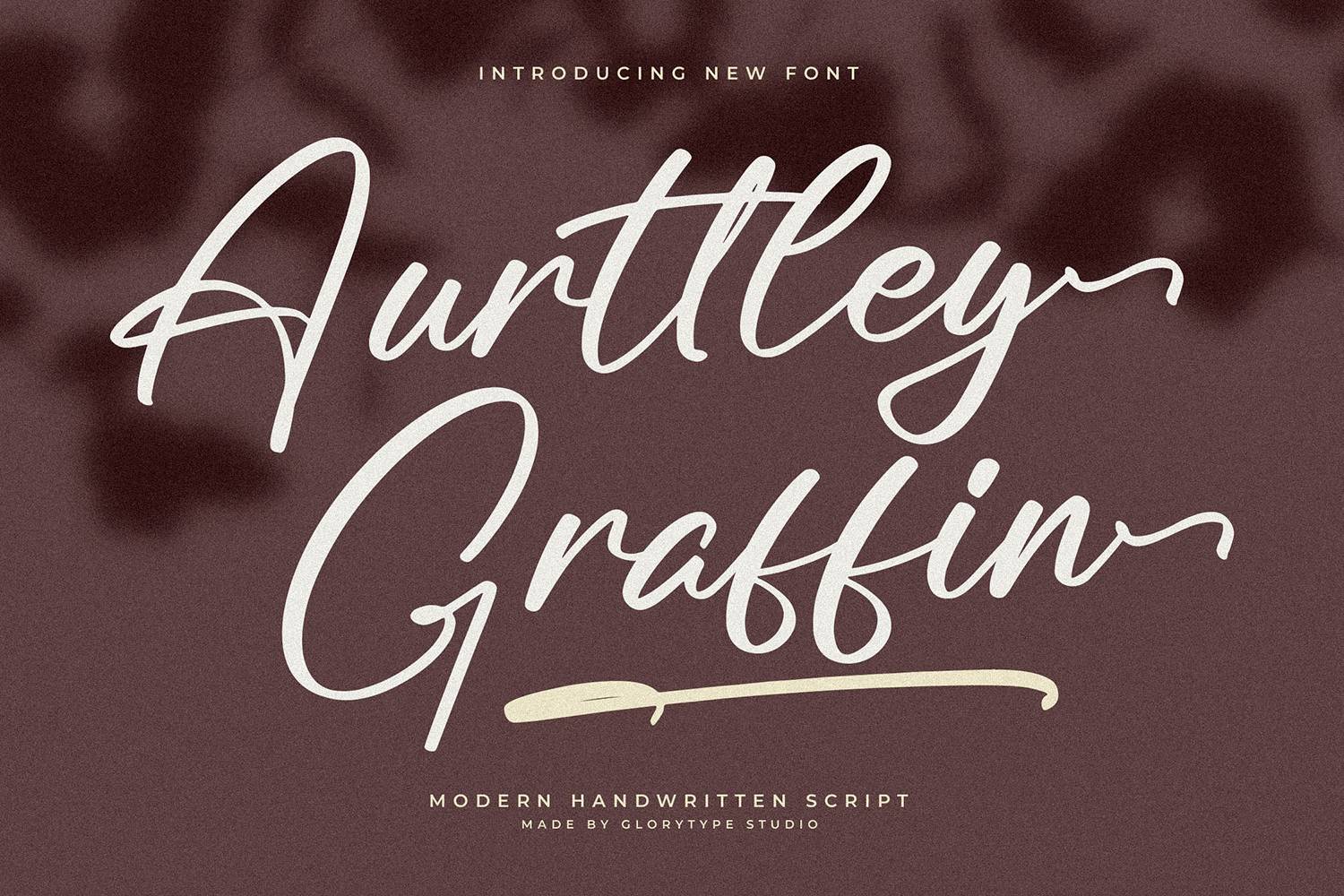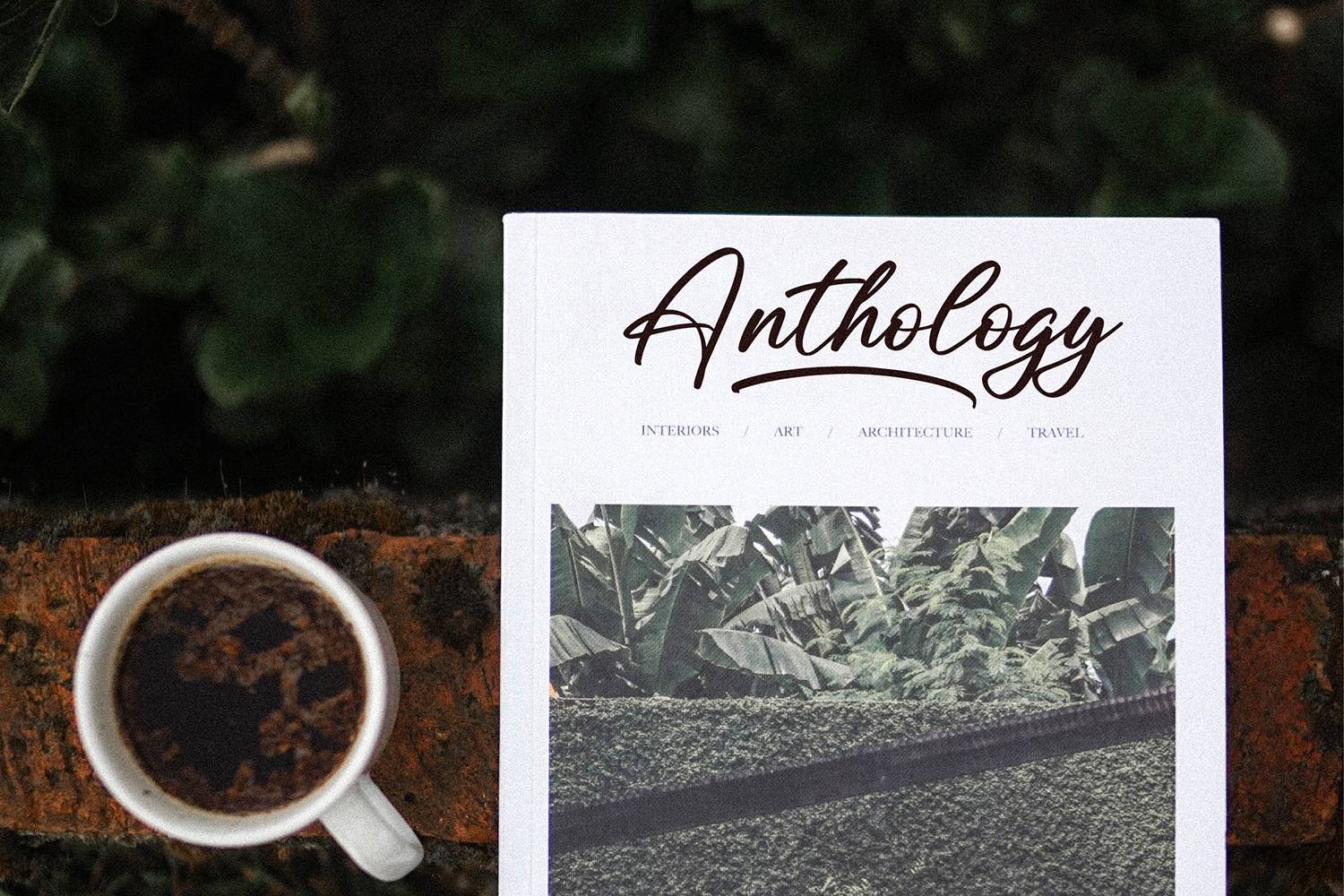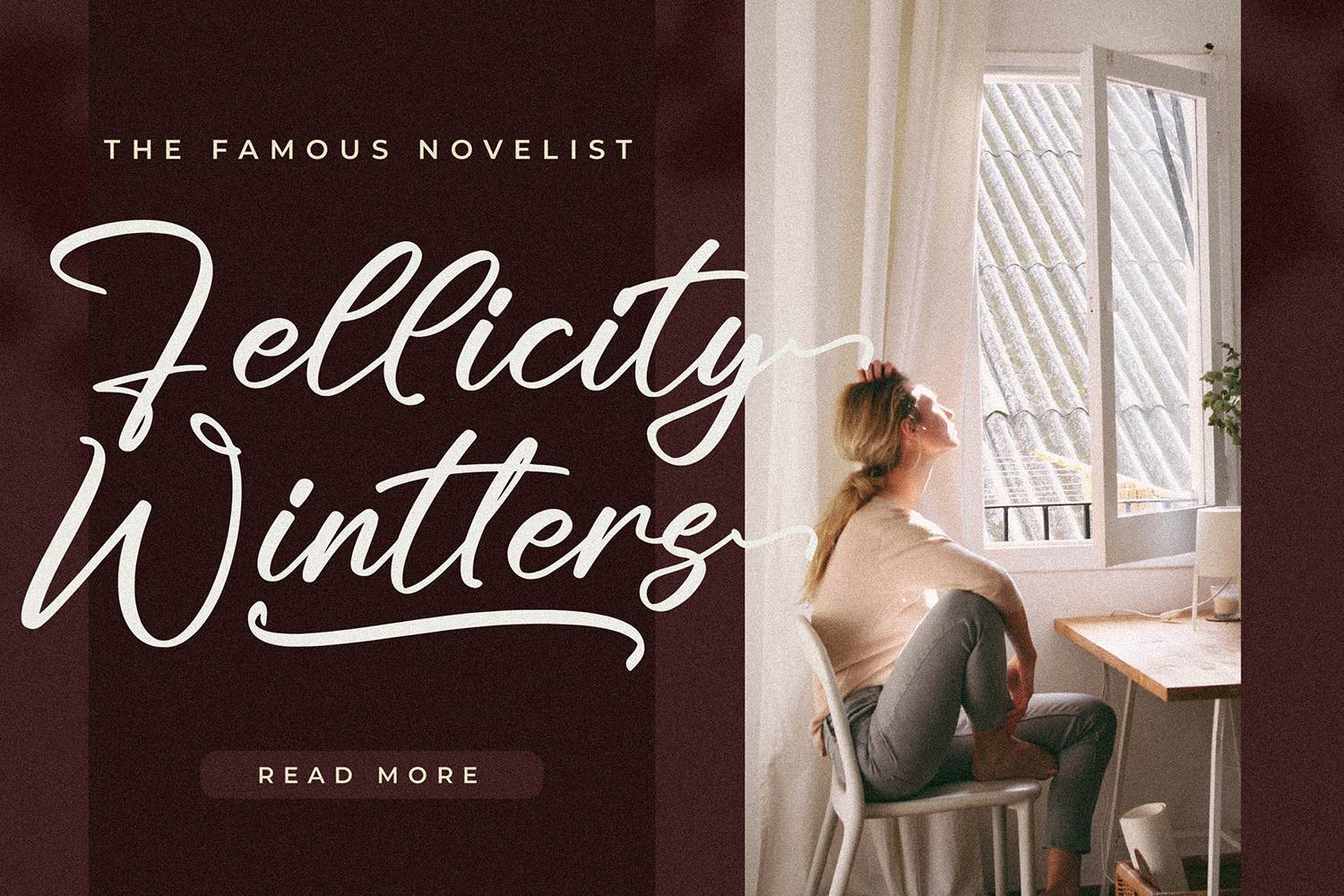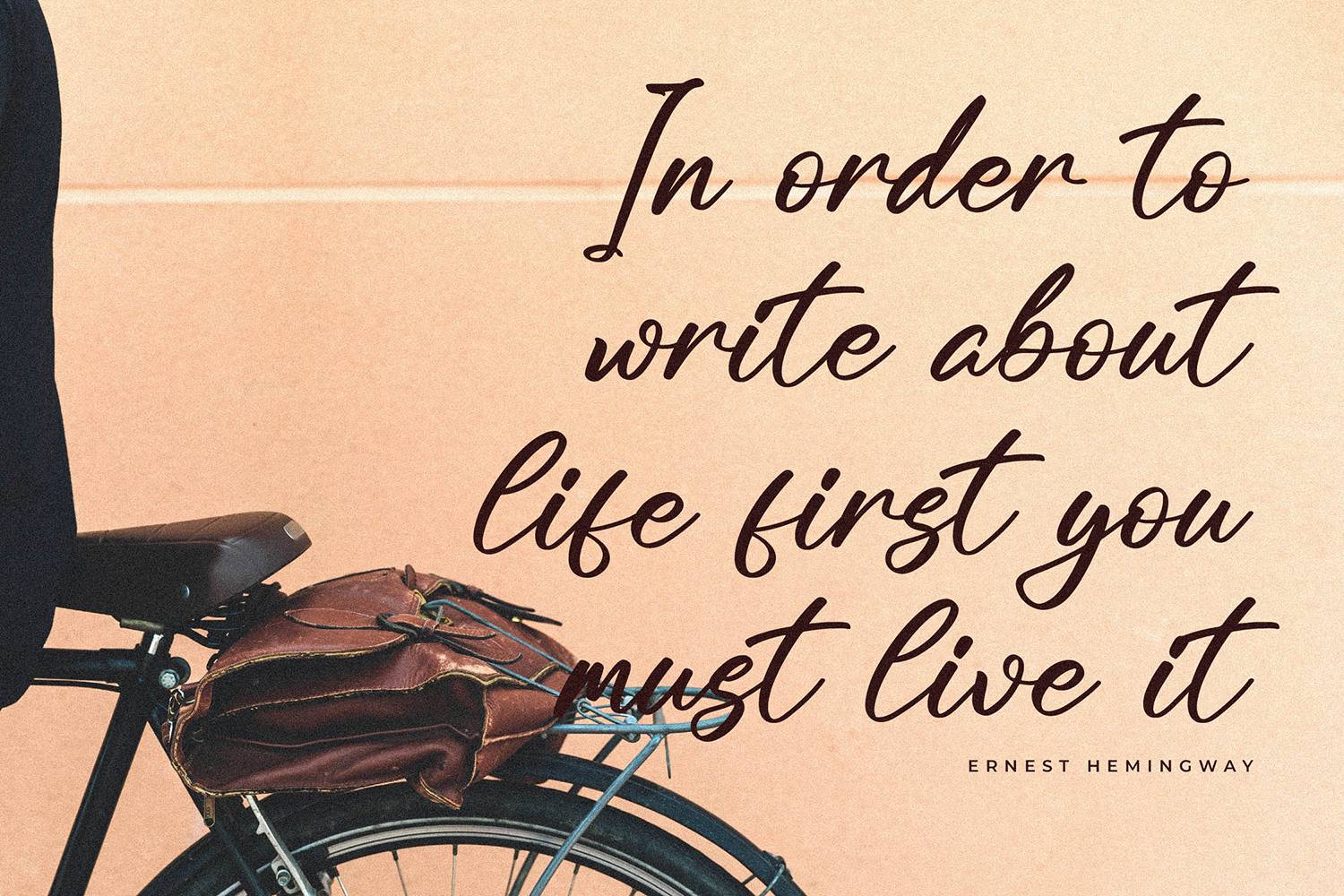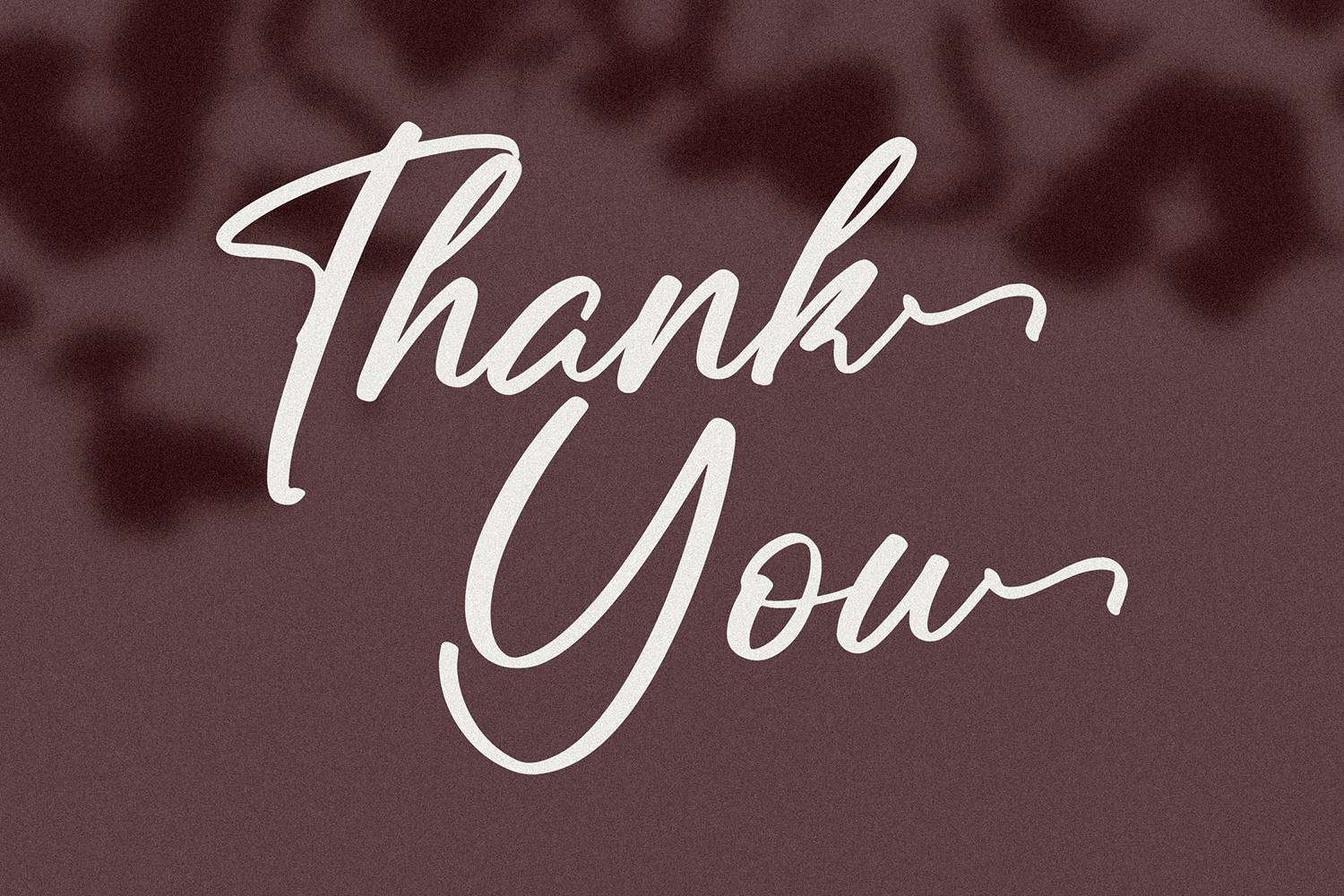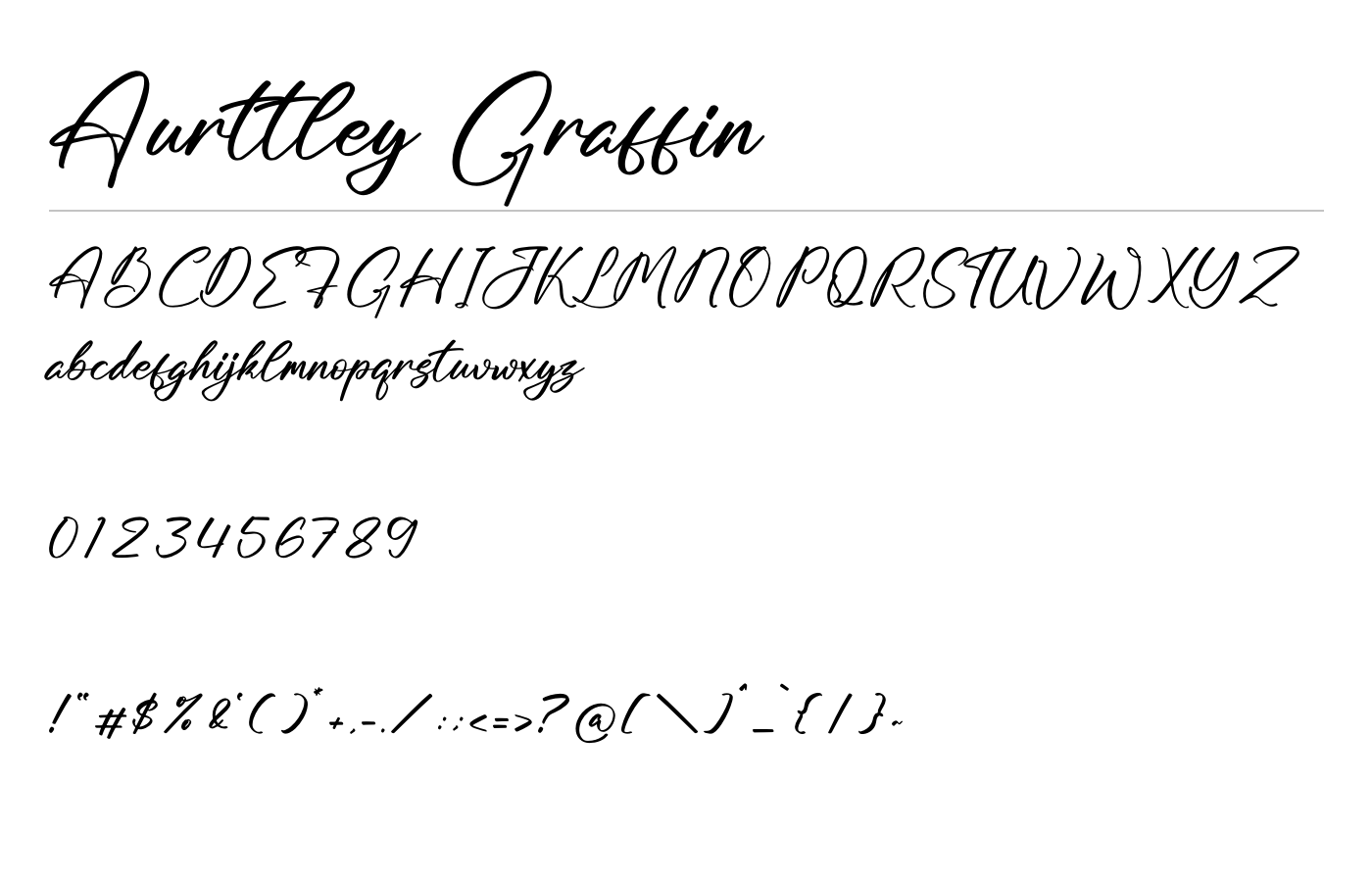
Aurttley Graffin is a stylish, cursive script font with a light, elegant stroke that captures a handwritten feel. Its smooth, flowing letterforms and moderately high x-height make it perfect for adding a personal, sophisticated touch to invitations, branding, and logos. This font works beautifully for projects seeking a refined yet approachable personality.
Aurttley Graffin Font
About Aurttley Graffin Font